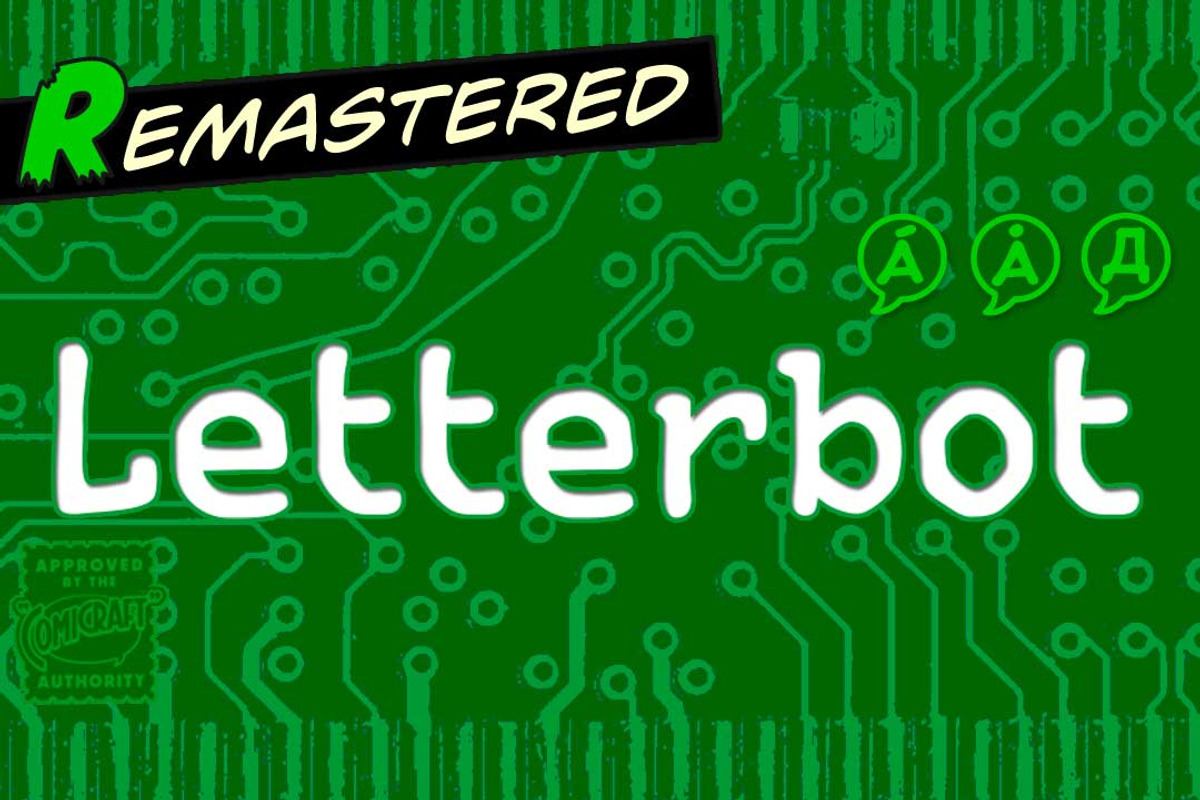
Letterbot - a comic book robot font Free Download
Letterbot - A Comic Book Robot Font Free Download
You must purchase this font for commercial use. However, you can download Letterbot - A Comic Book Robot Font Free Download for testing purposes. Letterbot is a fun and quirky comic book-inspired font with robotic influences, perfect for creating futuristic, playful, and tech-themed designs. Its bold, blocky letterforms and mechanical details make it ideal for comic book covers, logos, posters, product packaging, and any project that needs a high-energy, robotic vibe.
With its unique design, Letterbot adds a touch of personality and excitement, making it great for both creative and entertainment industries. Whether you’re designing for a sci-fi brand, creating event posters, or working on playful children's content, this font will bring fun and character to your typography.